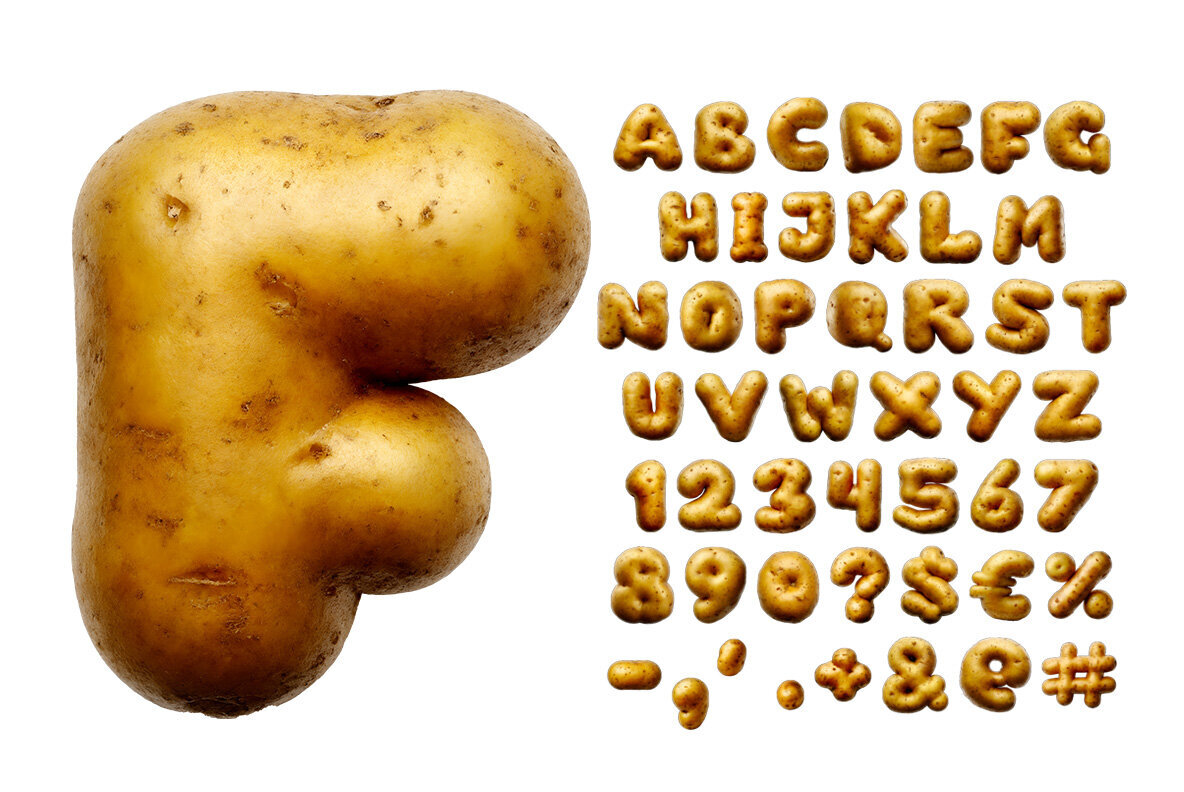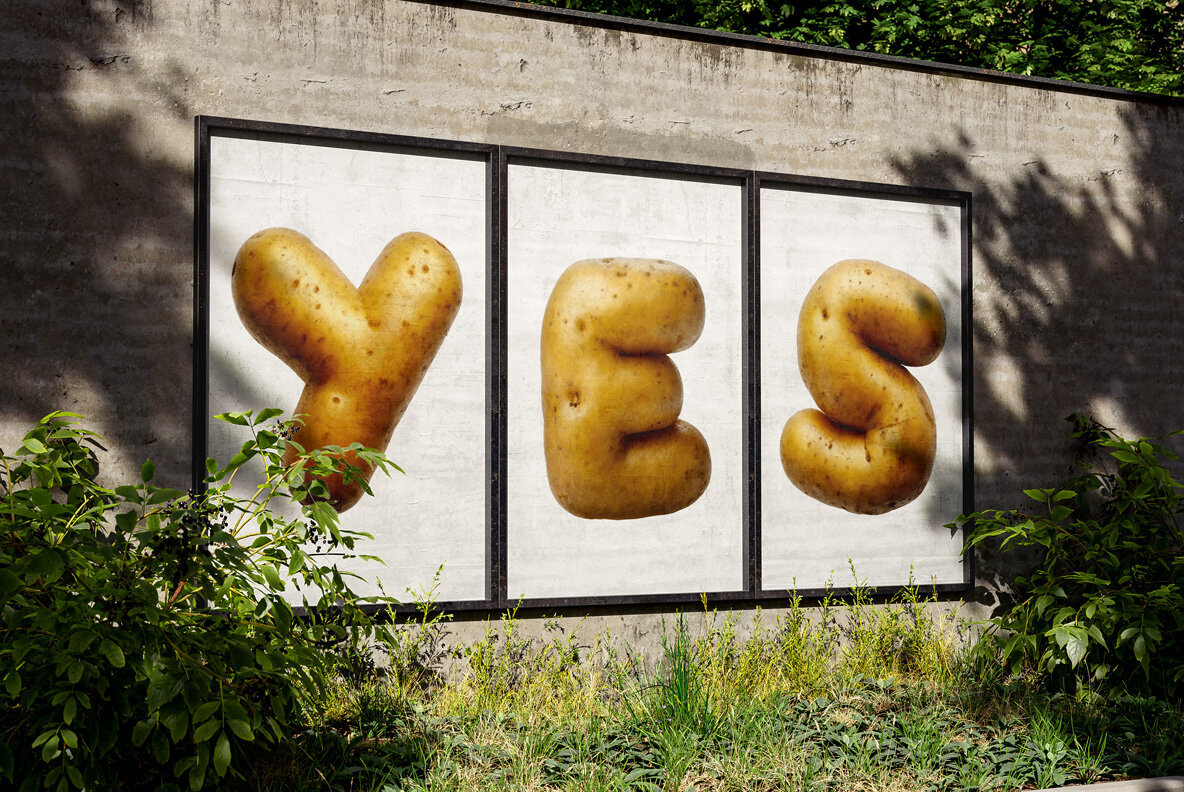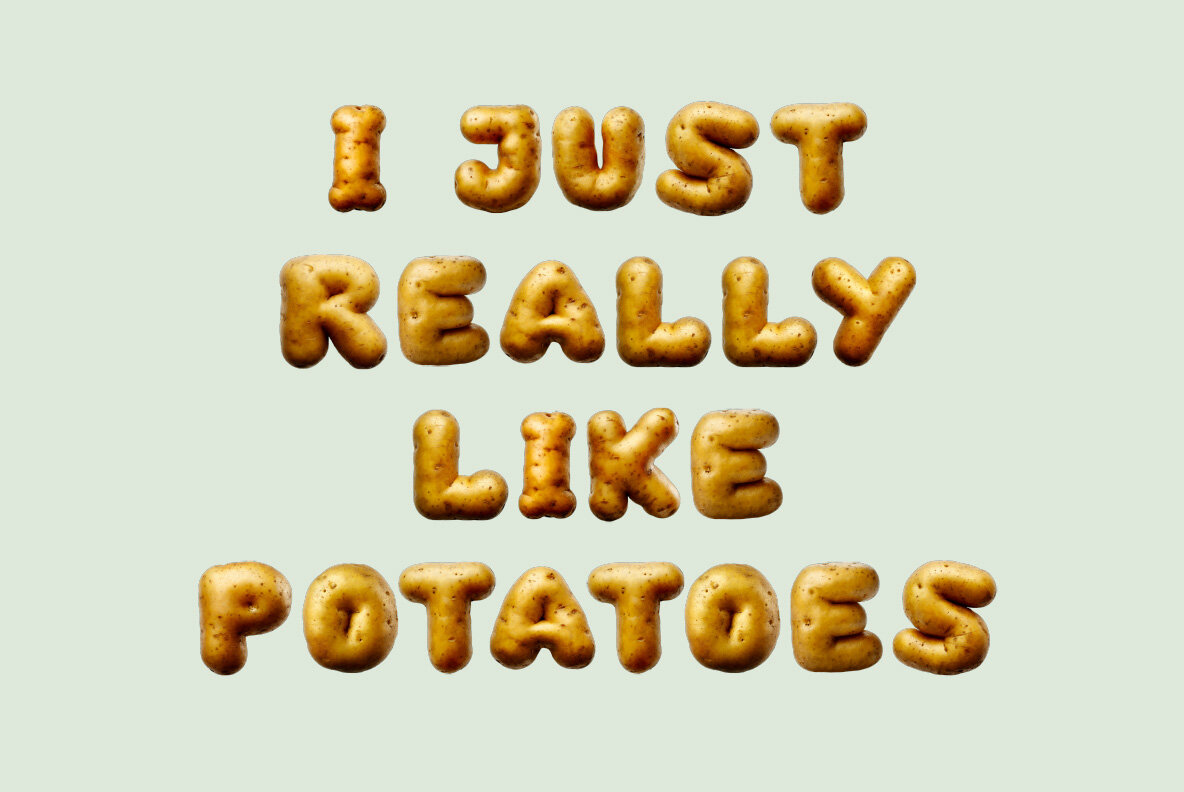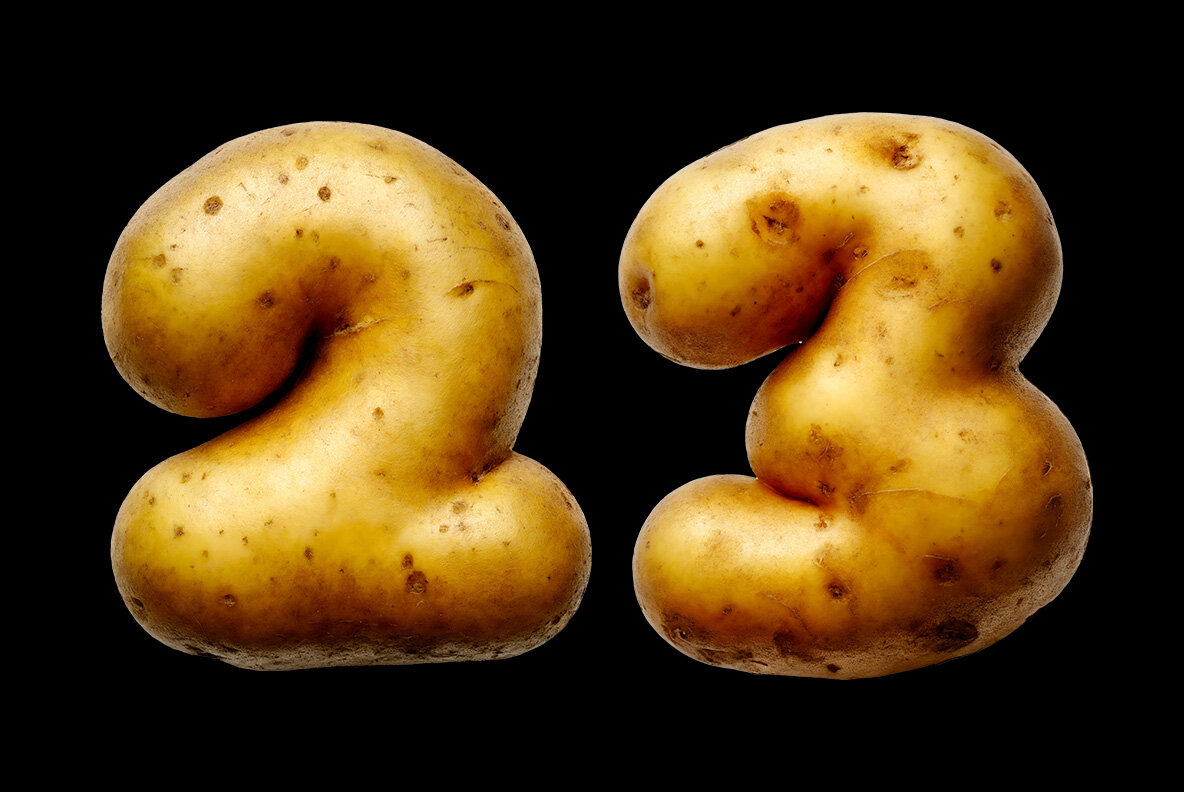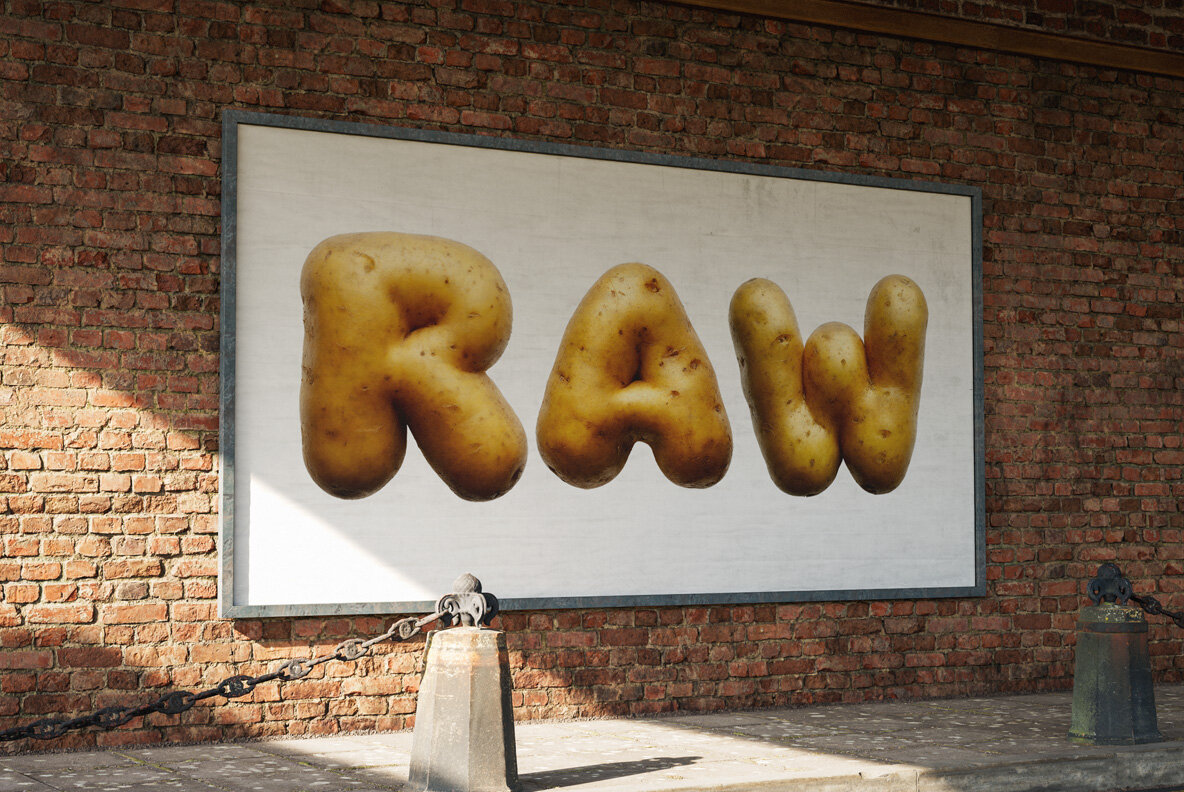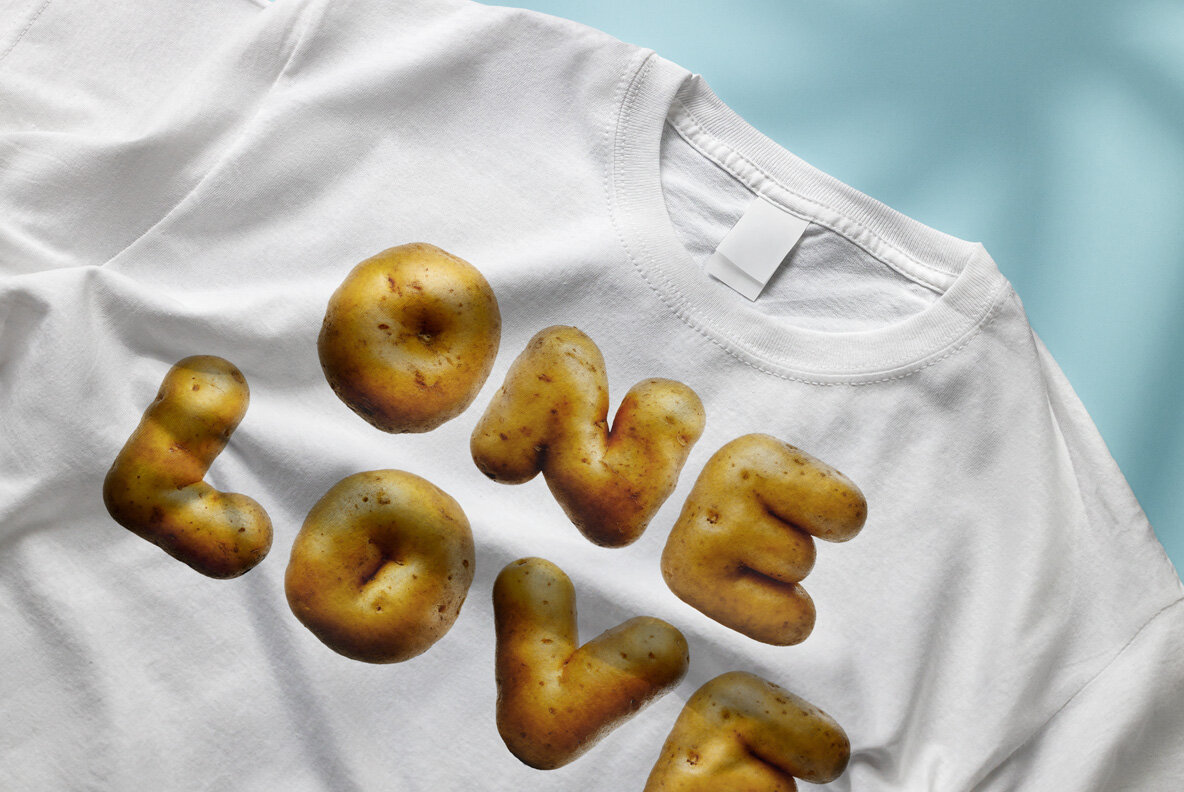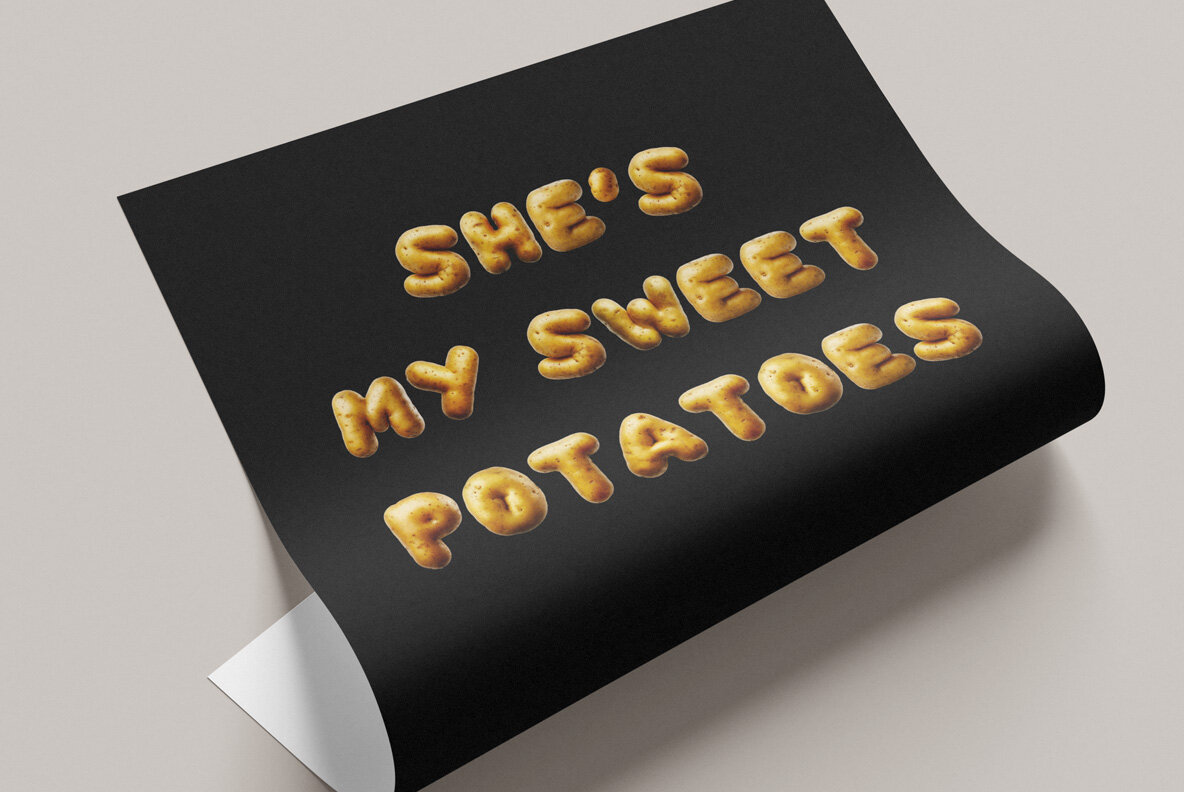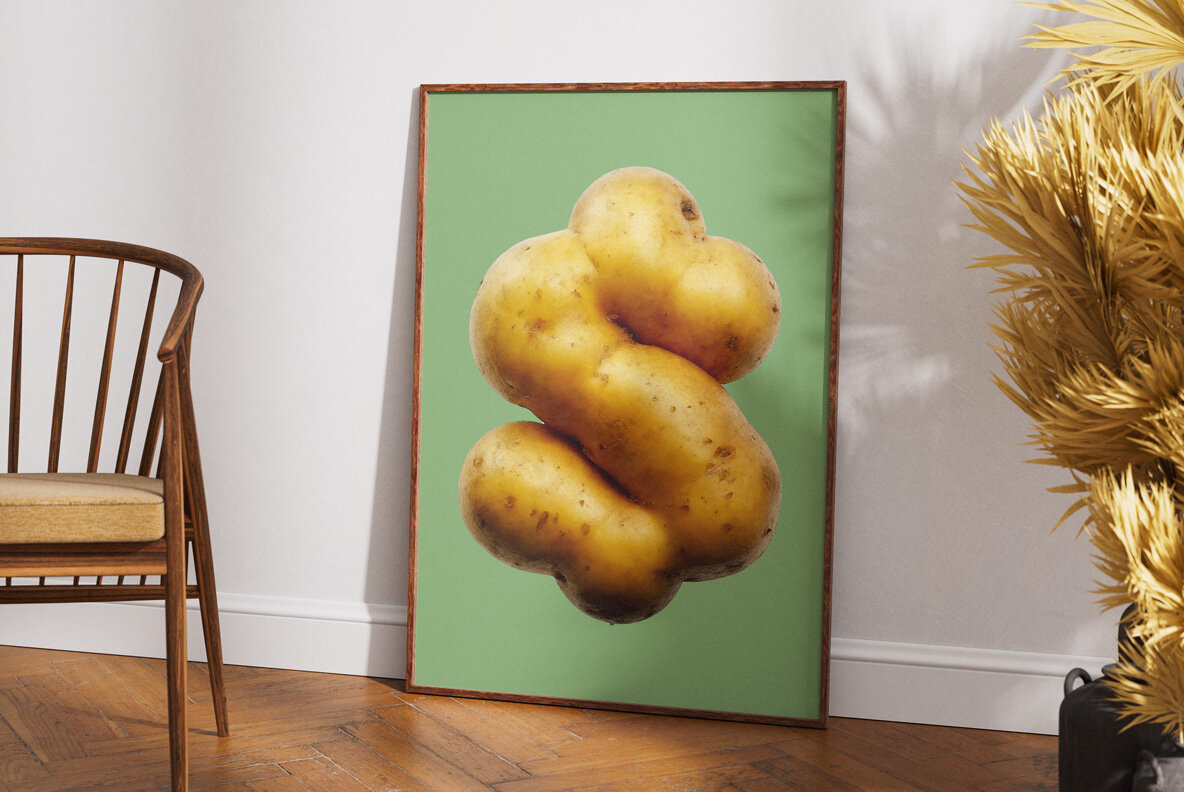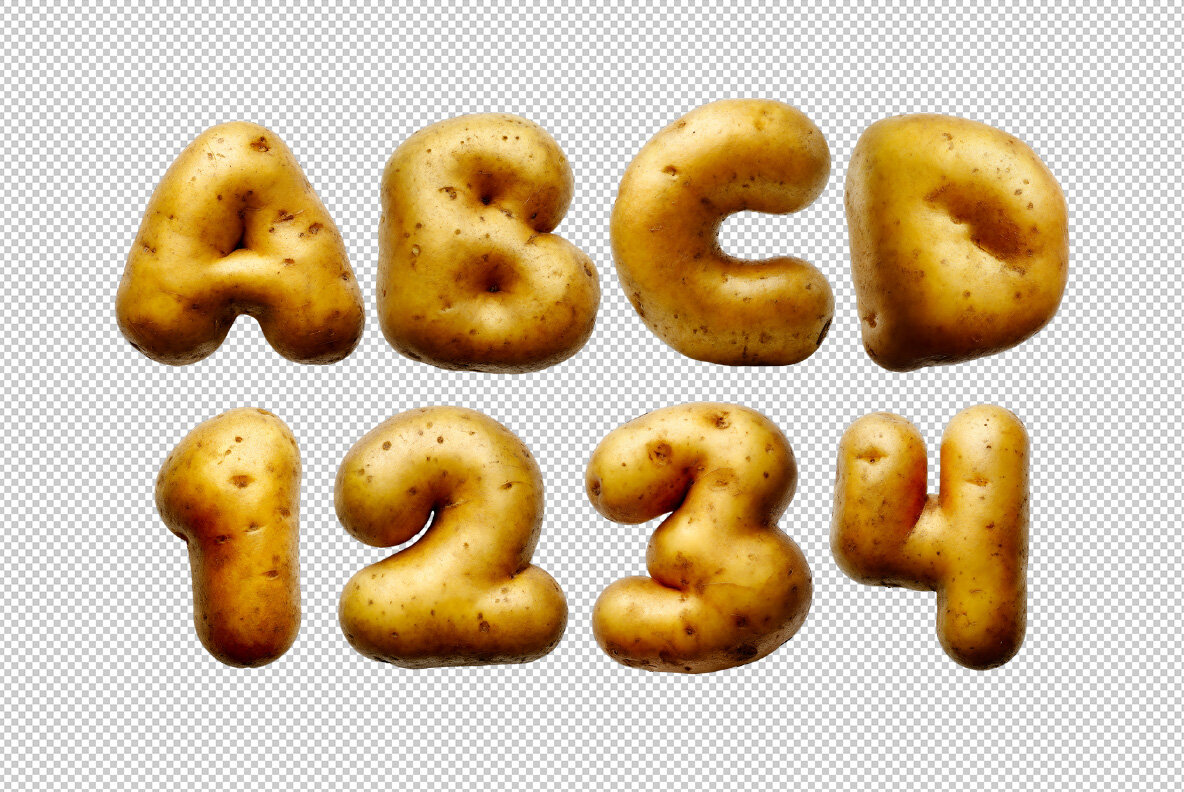
Potato Font is a unique typeface that adds a quirky, rustic charm to any design project. Designed to resemble raw, brown potatoes, its letters are perfect for adding an organic vibe to farm-to-table brands, food-related projects, or any design that craves a touch of earthy fun. With a focus on texture and originality, this potato-inspired font offers a playful and wholesome aesthetic to your creative work.